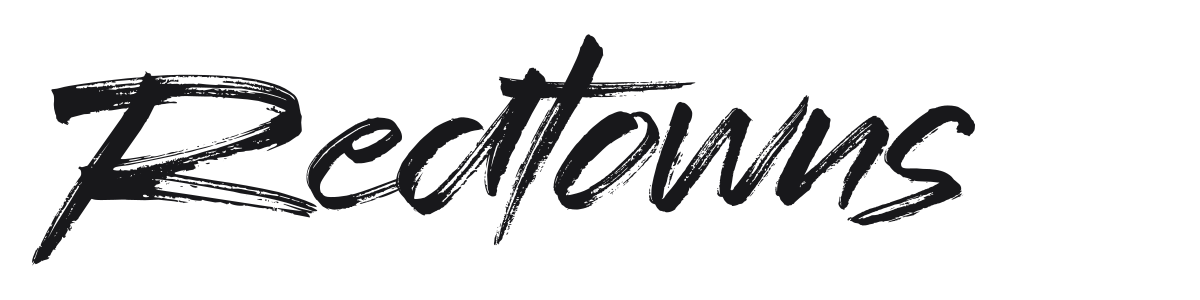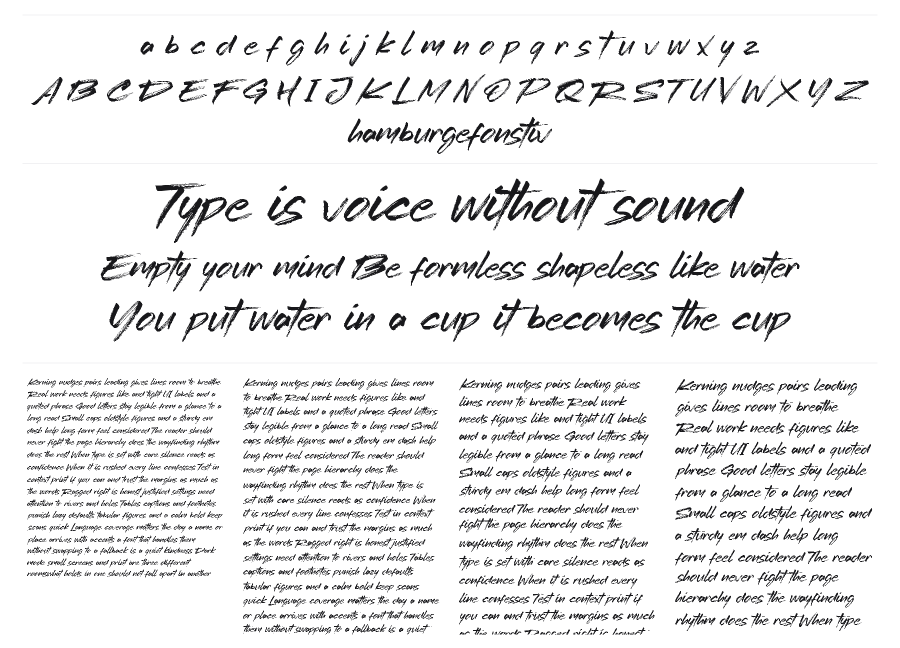
Redtowns
Redtowns is a rough brush script with heavy ink texture and wild, gestural energy. The strokes range from thick, bristled downstrokes to delicate hairline connections, creating a handcrafted look that feels genuinely hand-lettered rather than digitally polished. It works best large, where the texture and rhythm can breathe.